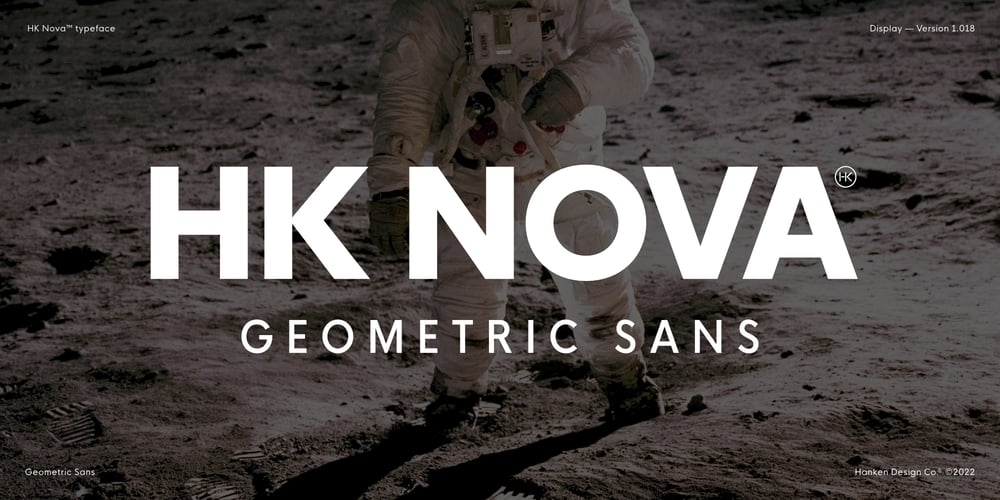
HK Nova Font Family was designed by Alfredo Marco Pradil and published by Hanken Design Co.. HK Nova contains 27 styles and family package options. HK Nova is a geometric sans inspired by the Century Gothic and Futura. It formalizes Century Gothic and softens Futura.